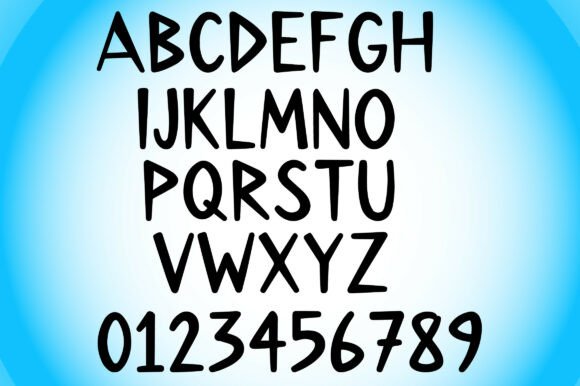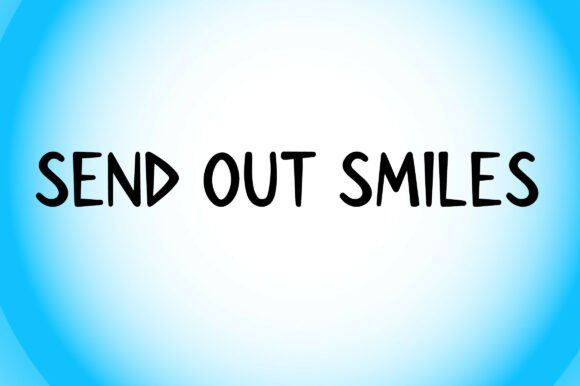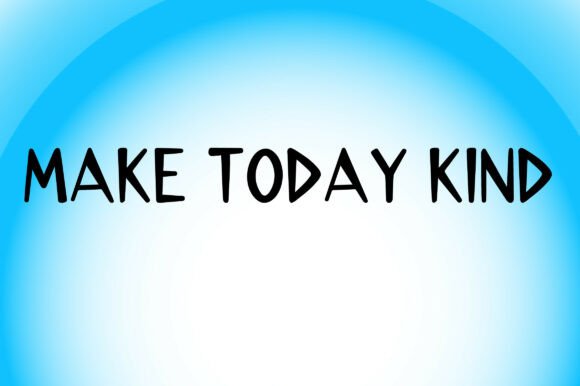
Colette Font: Elevate Your Designs with a Bold and Friendly Display Font
Are you looking for a font that can add a touch of modern charm to your designs while maintaining a clean and handcrafted feel? Look no further than the Colette font. This bold display font is perfect for designers and crafters who want to create eye-catching and memorable designs that stand out from the crowd.
What Makes Colette Font Special?
COLETTE is a bold display font that boasts a clean handcrafted style with a friendly modern charm. Its uppercase letterforms feature thick black strokes, rounded curves, smooth edges, and slightly playful hand-drawn details that create a simple, stylish, and eye-catching look. The font is designed with uppercase letters A–Z and numbers 0–9, making it perfect for a wide range of design projects.
Key Features of Colette Font
- Bold and Memorable: COLETTE’s thick black strokes and playful hand-drawn details make it a bold and memorable typeface that’s perfect for logos, branding, and headlines.
- Clean and Handcrafted: The font’s clean lines and handcrafted style give it a unique and stylish feel that’s perfect for designers and crafters who want to add a personal touch to their designs.
- Uppercase Letters and Numbers: COLETTE features uppercase letters A–Z and numbers 0–9, making it perfect for a wide range of design projects.
- Versatile: The font is perfect for logos, branding, posters, packaging, headlines, invitations, social media graphics, and creative projects that need a bold and memorable typeface.
Why Choose Colette Font?
There are many reasons why designers and crafters choose COLETTE for their design projects. Here are a few:
- Easy to Read: Despite its bold style, COLETTE is easy to read, making it perfect for designs that need to communicate a message quickly and effectively.
- Highly Versatile: The font’s clean and handcrafted style makes it perfect for a wide range of design projects, from logos and branding to posters and packaging.
- Unique and Stylish: COLETTE’s unique and stylish design makes it perfect for designers and crafters who want to add a personal touch to their designs.
How to Use Colette Font in Your Designs
COLETTE is a versatile font that can be used in a wide range of design projects. Here are a few ideas to get you started:
- Logos and Branding: Use COLETTE to create bold and memorable logos and branding materials that stand out from the crowd.
- Posters and Packaging: The font’s bold style and clean lines make it perfect for posters and packaging materials that need to grab attention.
- Headlines and Invitations: Use COLETTE to create eye-catching headlines and invitations that make a lasting impression.
- Social Media Graphics: The font’s clean and handcrafted style makes it perfect for social media graphics that need to stand out in a crowded feed.
In conclusion, COLETTE is a bold and friendly display font that’s perfect for designers and crafters who want to create eye-catching and memorable designs. Its clean handcrafted style, thick black strokes, and playful hand-drawn details make it a unique and stylish typeface that’s perfect for a wide range of design projects. Whether you’re creating logos and branding materials, posters and packaging, or social media graphics, COLETTE is the perfect choice.